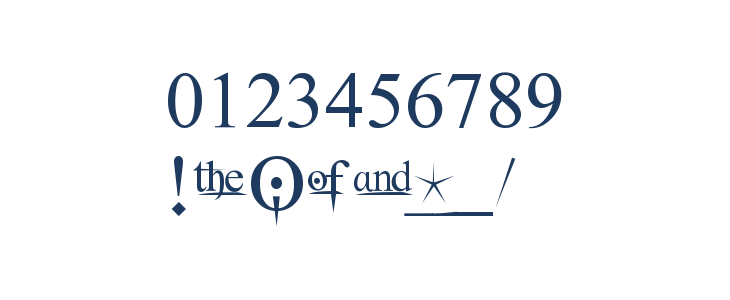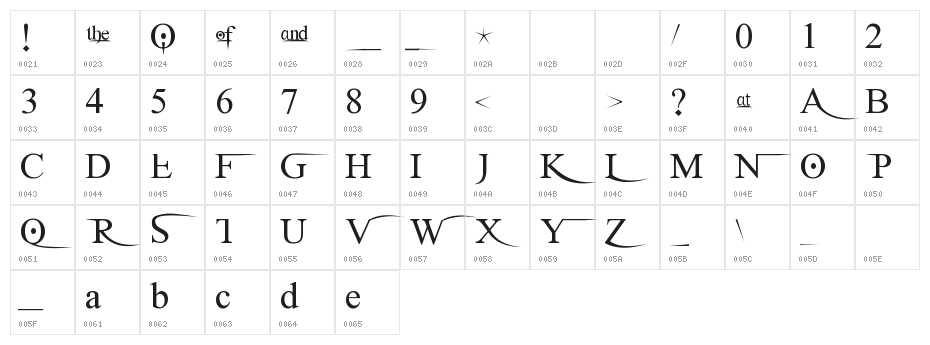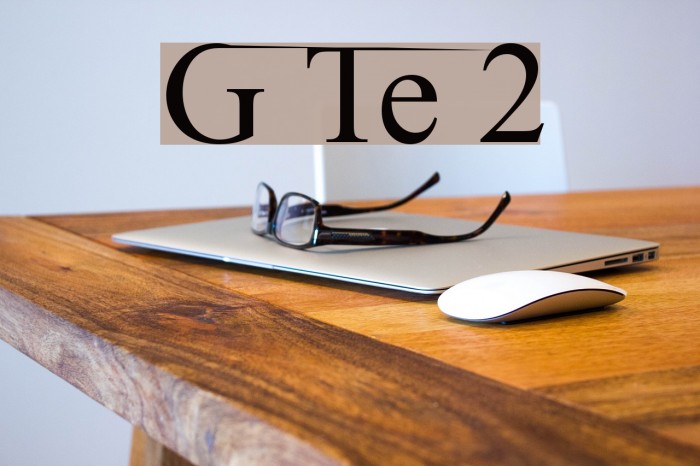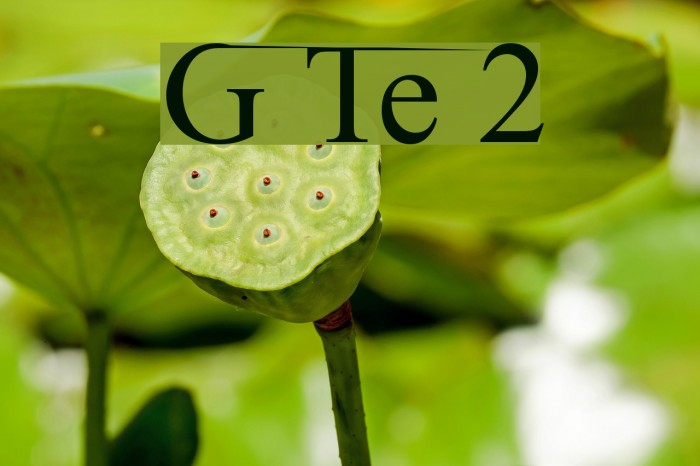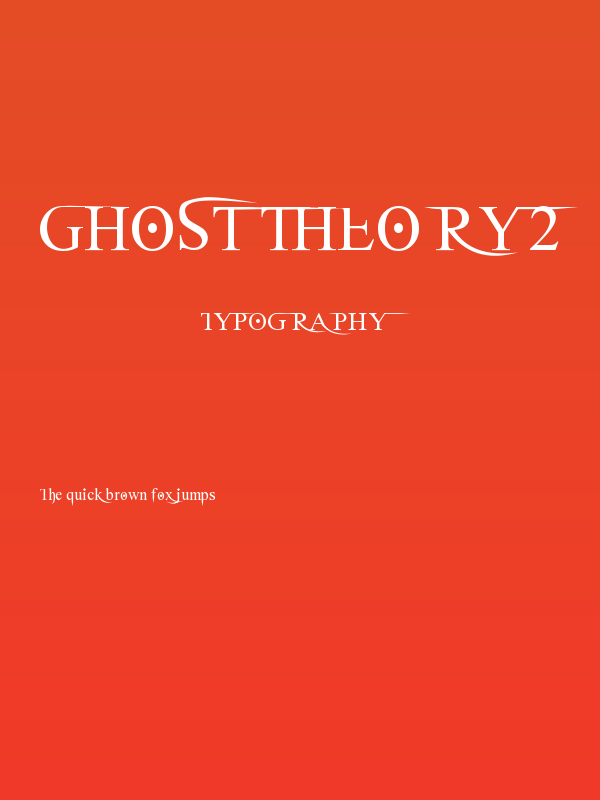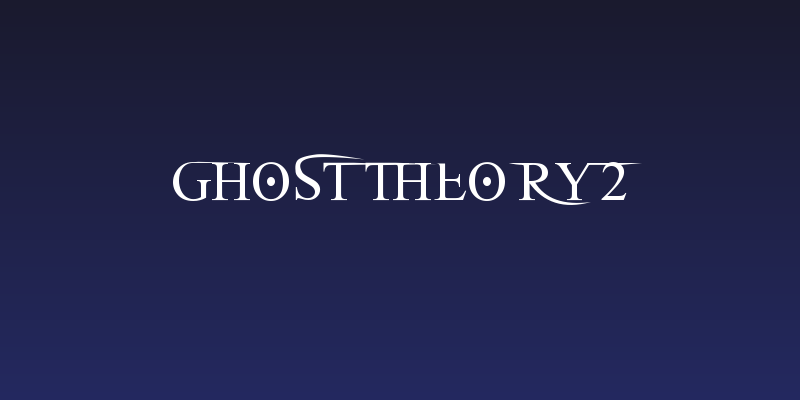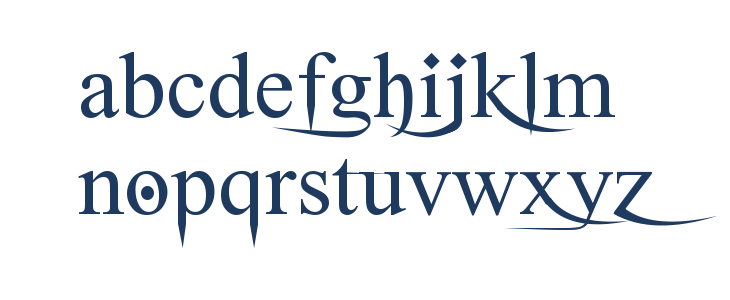
Ghost Theory 2 Font
Ghost Theory 2 Description
This font features a unique and dramatic style with sharp, elongated serifs and a distinct flair in its design. The uppercase letters are bold and commanding, with a gothic influence that adds a mysterious and elegant touch. The lowercase letters maintain a consistent style, offering a harmonious balance between the uppercase and lowercase alphabets. The numerals are clear and bold, matching the overall aesthetic of the font. Special characters are creatively designed, adding to the font's distinctive personality. This font is ideal for projects that require a touch of drama and sophistication.
| Overall Style | Gothic, Dramatic |
| Proposed Projects | Ideal for book covers, movie posters, branding, and any project needing a dramatic and elegant touch. |